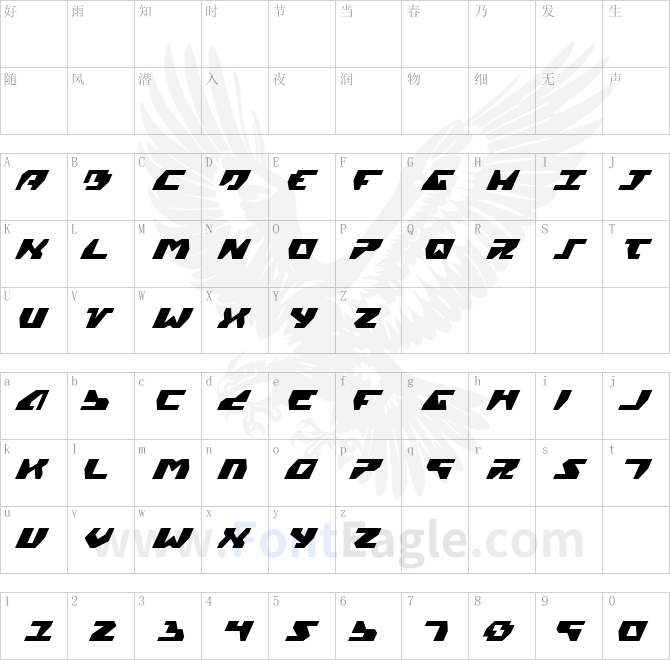
Gyrfalcon-Italic is a great font, widely used in graphic design, single-page menu design, poster design and other fields, and is deeply loved by designers.Gyrfalcon-Italic download.